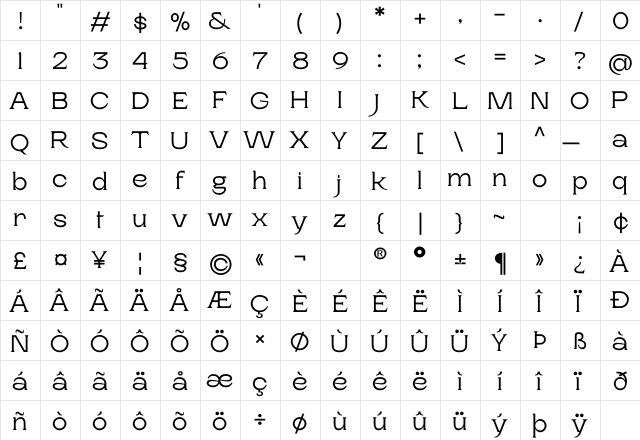
Rasputin Regular
| Foundry | Jehoo Creative |
| Designer | Anwar Patihan |
Design Context for Rasputin Typeface
Rasputin takes a measured approach to typography — its balanced proportions and neutral character make it a reliable workhorse for both digital and print work.